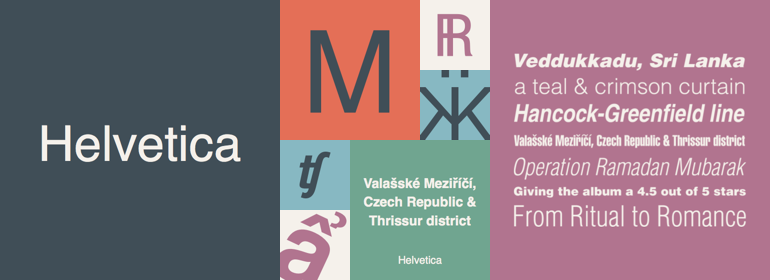
Helvetica®
Helvetica or Neue Haas Grotesk is a widely used sans-serif typeface developed in 1957 by Swiss typeface designer Max Miedinger with input from Eduard Hoffmann. Helvetica is a neo-grotesque or realist design, one influenced by the famous 19th century typeface Akzidenz-Grotesk and other German and Swiss designs